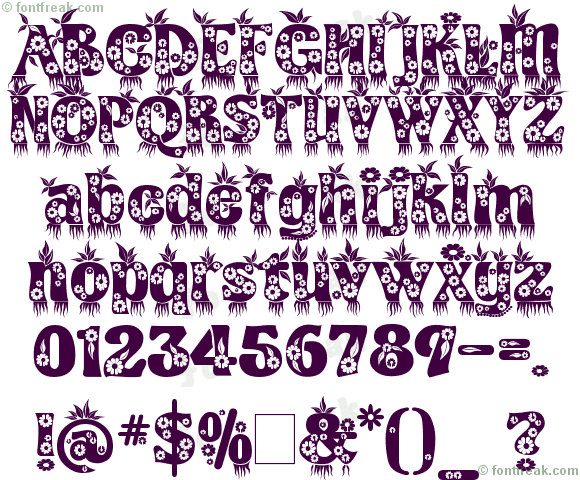
Kingthings Annex
The Kingthings Annex font, designed by Kevin King, is a decorative typeface that exudes a quirky charm, making it a delightful addition to any typography collection. Its unique style blends elements of whimsy with a sense of playfulness, featuring a variety of decorative motifs that include flowers and grass-like elements. The strokes present a moderate weight with a consistent contrast, providing legibility while maintaining an artistic flair. The spacing is thoughtfully designed, allowing for a balanced appearance that enhances readability even in larger formats.
This font is particularly well-suited for a range of creative applications. It shines in wedding invitations, where its ornate details can add a touch of elegance and whimsy. Similarly, it is ideal for children's book covers, capturing the imagination of young readers with its playful design. Restaurant menus can also benefit from the Kingthings Annex font, giving them a distinctive character that reflects a fun dining experience. Additionally, it can be effectively used in promotional materials for craft fairs or artisanal markets, appealing to an audience that appreciates creativity and uniqueness.
Ultimately, what sets the Kingthings Annex font apart is its ability to combine artistic expression with functional typography. Its playful nature invites creativity while remaining versatile enough for various design needs, making it an excellent choice for anyone looking to make a lasting impression.